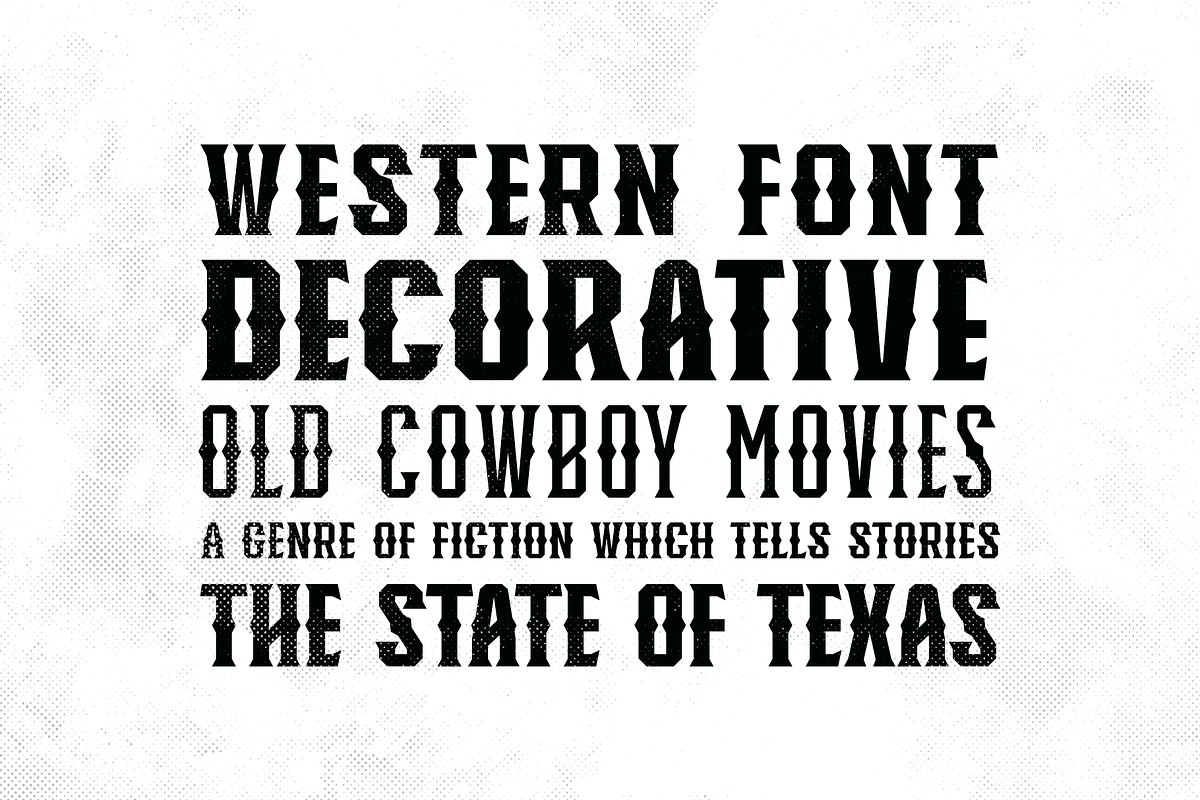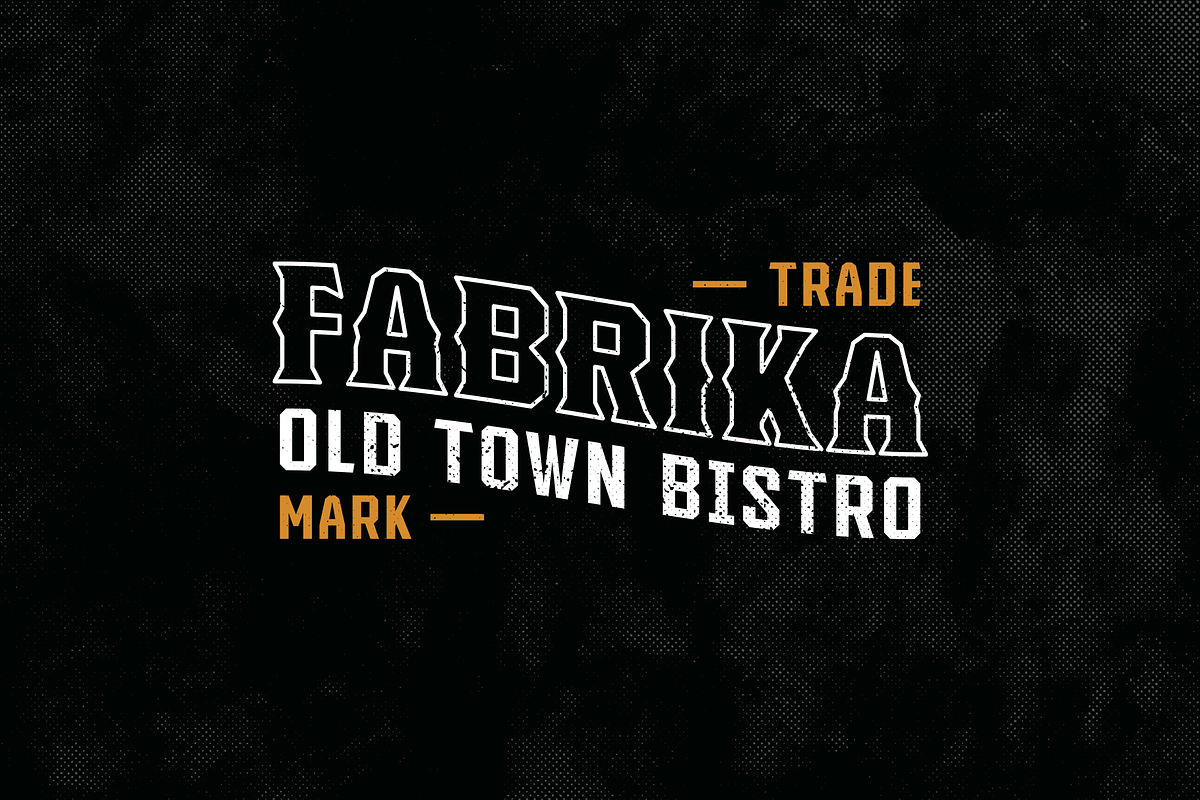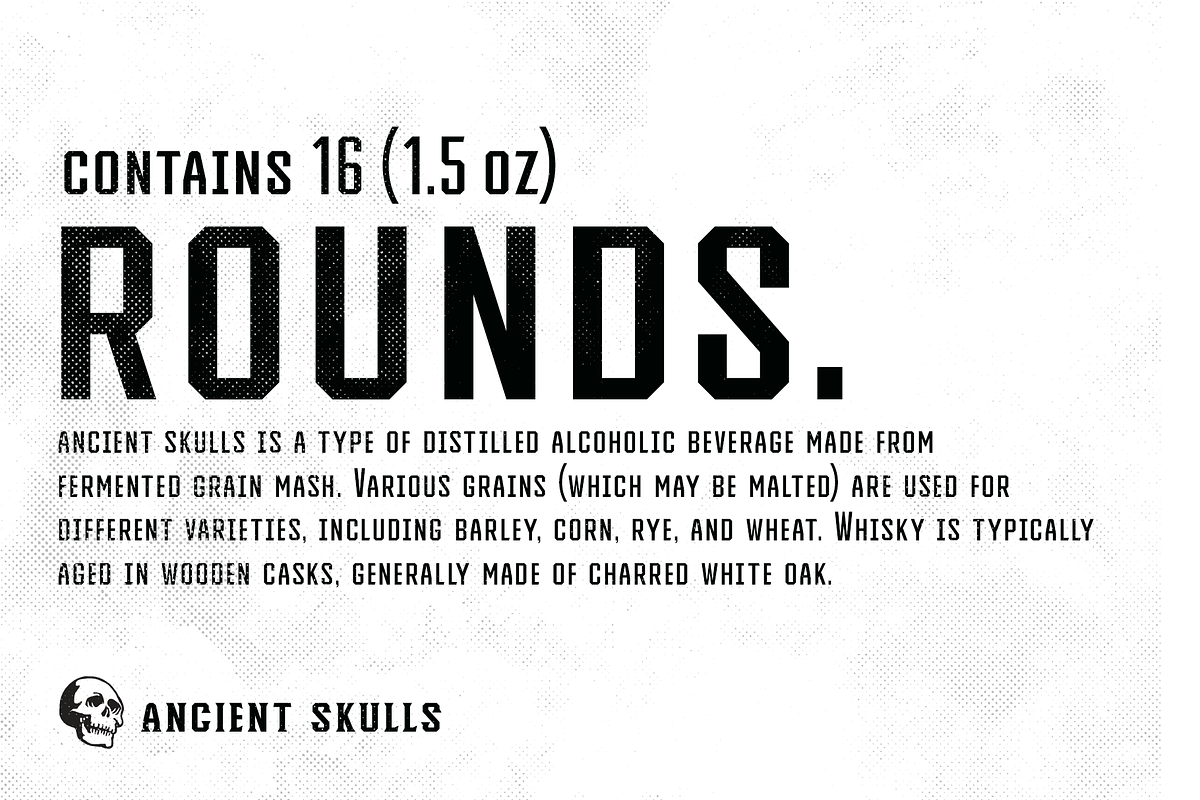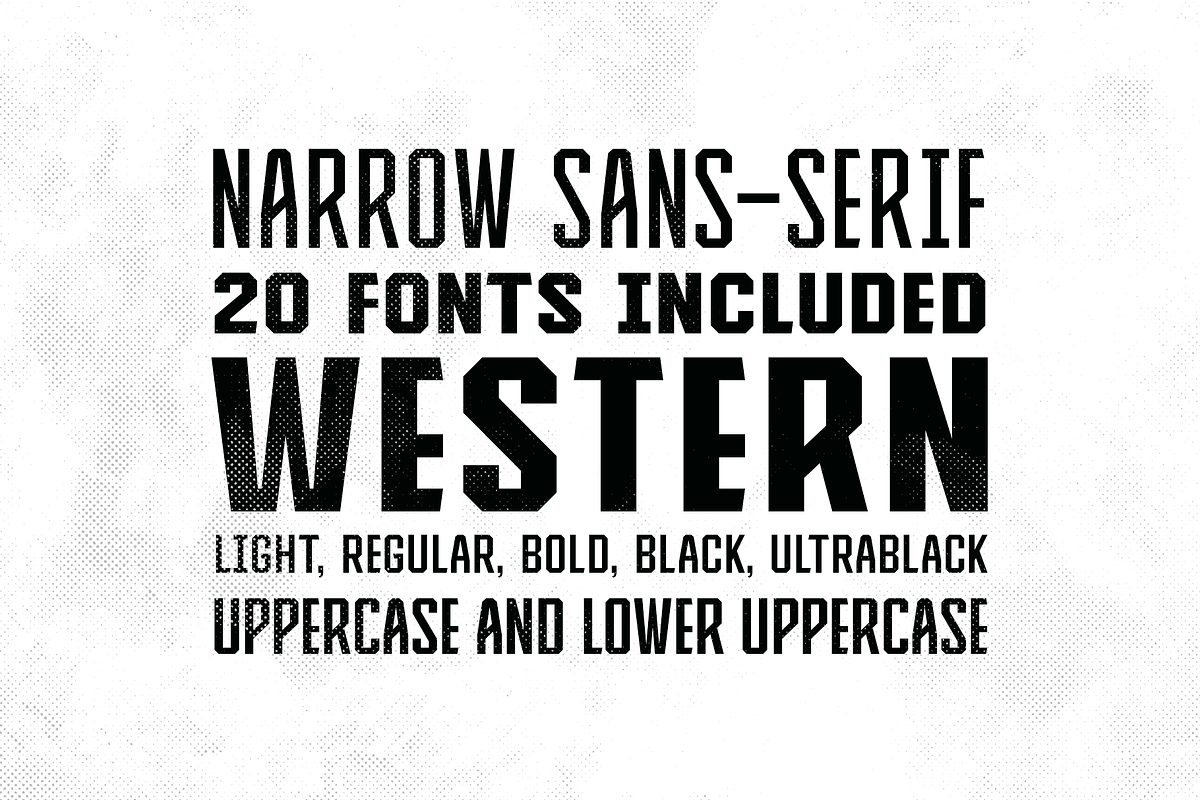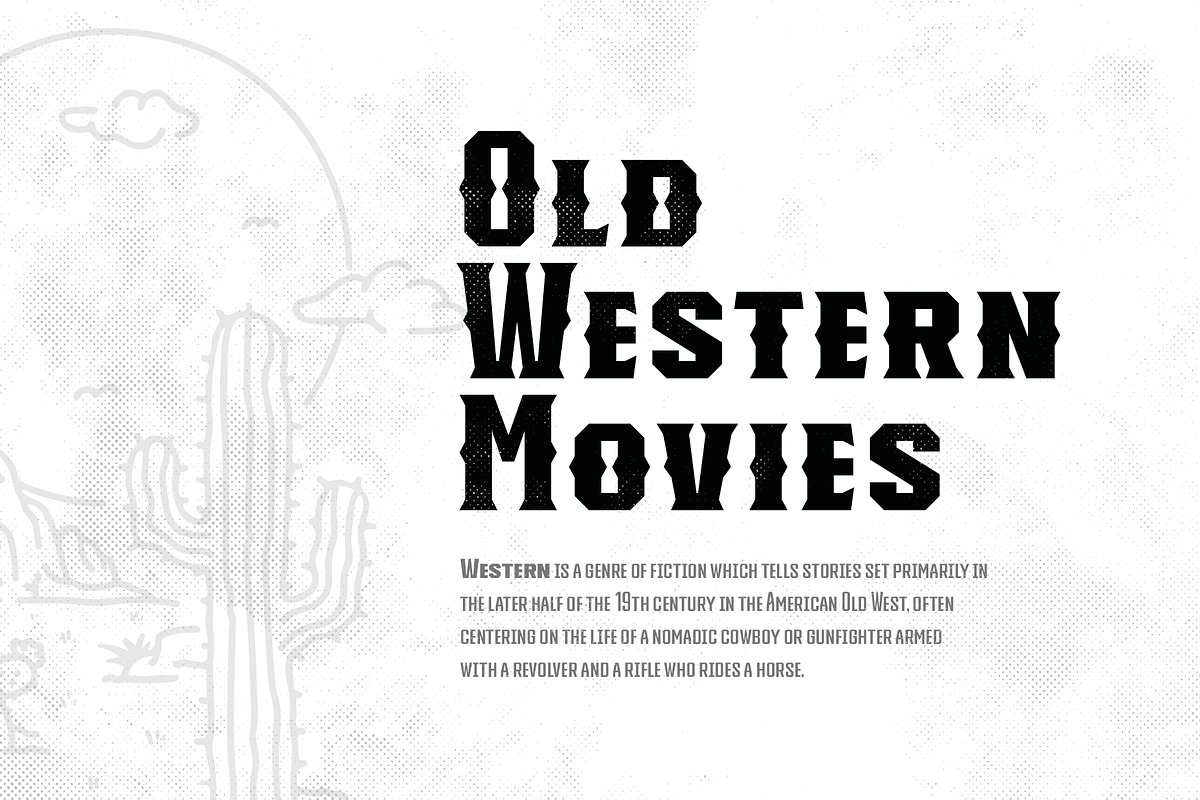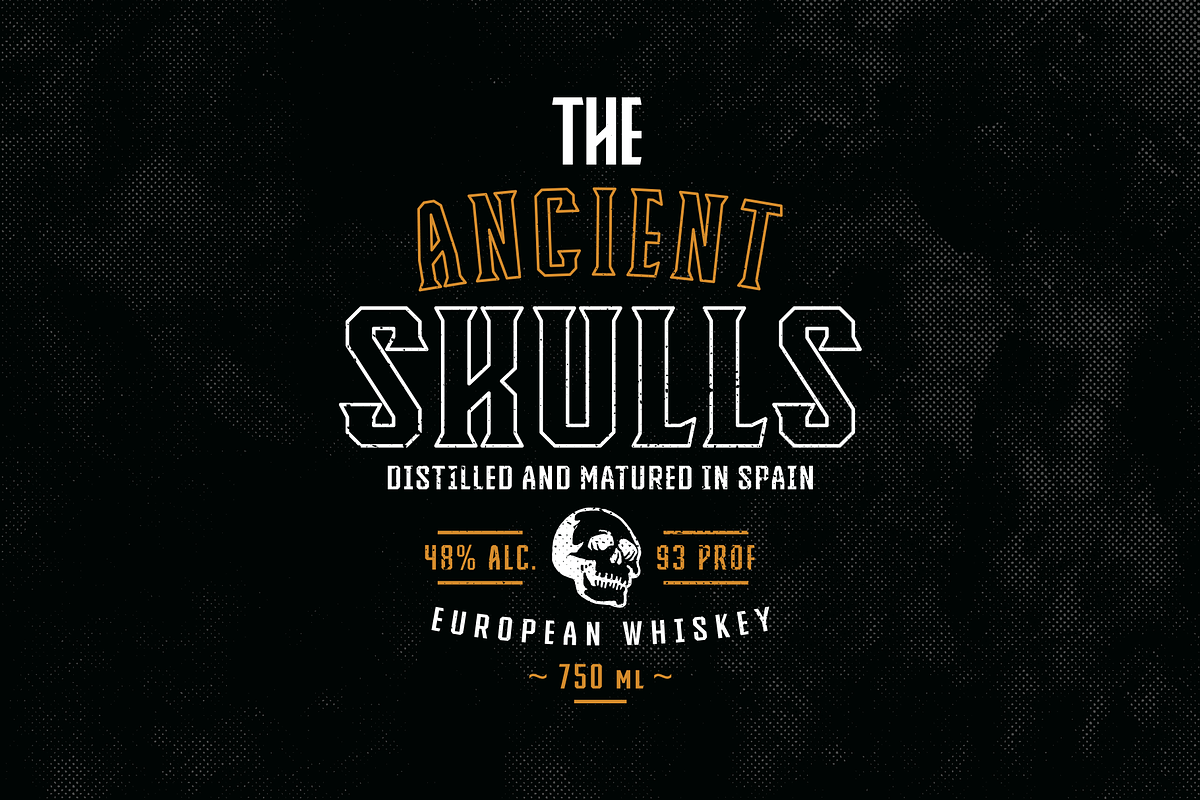
Knucklehead Font Family
Knucklehead Font Family by Headfonts is a font selected for branding, posters, packaging, typography.
- Knucklehead Sans
- Light
- Bold
- Black
- Ultra Black
- Knucklehead Serif
- Light
- Knucklehead Sans
- Light
- Bold
- Black
- Ultra Black
- Knucklehead Serif
- Light
- Knucklehead Light
- Knucklehead Regular
- Knucklehead Bold
- Knucklehead Black
- Knucklehead Ultra Black
- Knucklehead Deco Light
- Knucklehead Deco Regular
- Knucklehead Deco Bold
- Knucklehead Deco Black
- Knucklehead Deco Ultra Black
Why Knucklehead Font Family is worth a look
Knucklehead Font Family by Headfonts fits naturally into Branding, posters, packaging, typography.